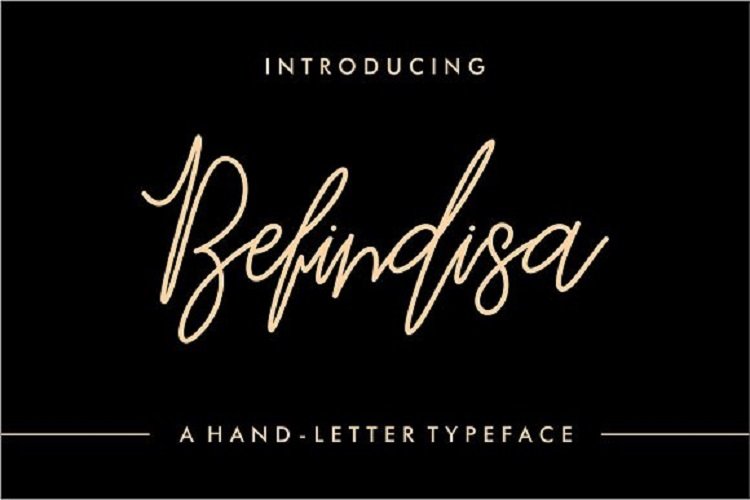
Befindisa Script Font
You’ll recognize the wonderful and exciting with this typeface, which is perfection in every handwriting. Introducing Befindisa Script Font! Befindisa Script was designed by MERCURIAL. Befindisa is hand-letter script font, every single letters have been carefully crafted to make your text looks beautiful. handwriting style will be very suitable for quotes, poster, wedding, branding, logo, fashion, apparel, letter, invitation, stationery, etc.